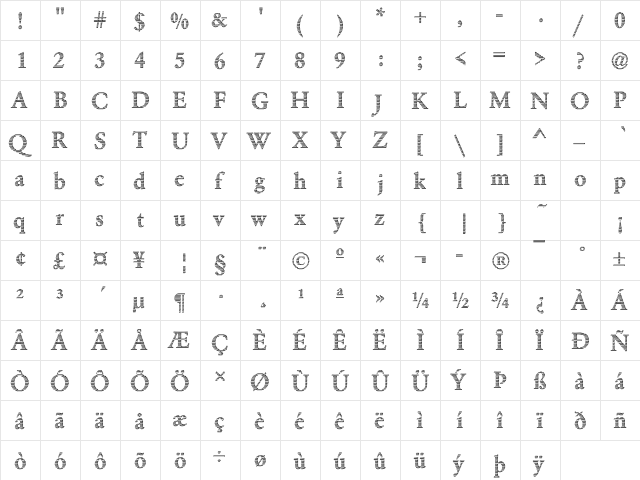
DTCGaramondM07 Regular
DTCGaramondM07 takes a measured approach to typography — its balanced proportions and neutral character make it a reliable workhorse for both digital and print work.